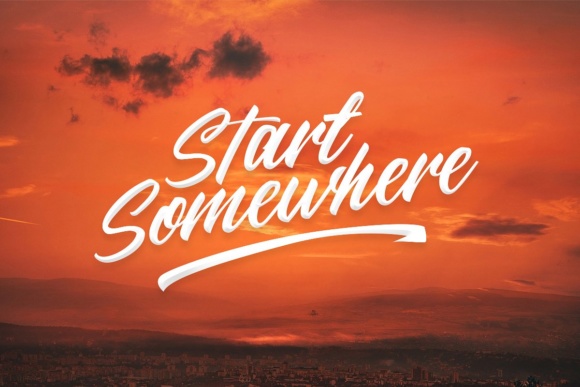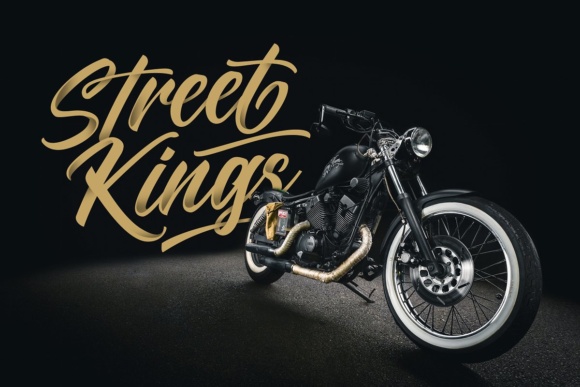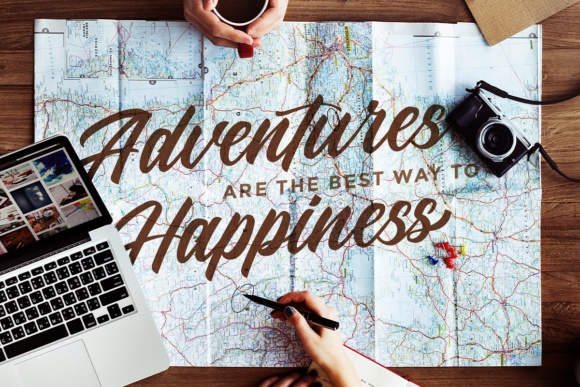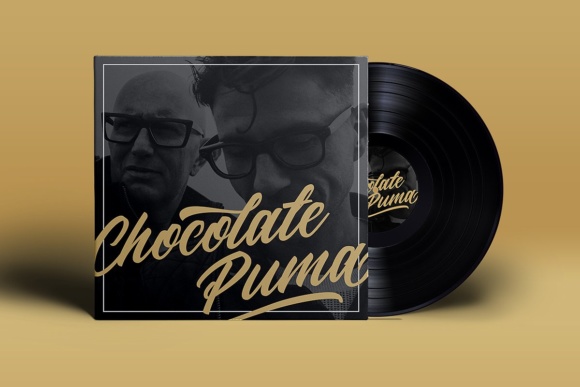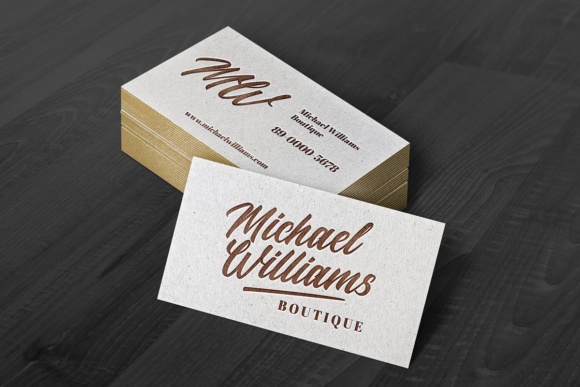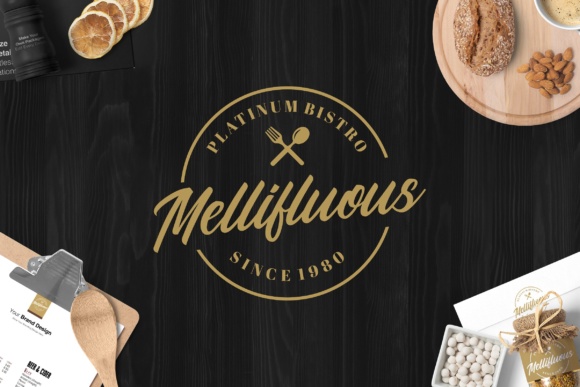
Introduction to Larizo Script Font
Larizo Script is a truly personalized handmade lettering that’s transformed into a font.
Larizo Script is a truly personalized handmade lettering that’s transformed into a font!
Key Features of Larizo Script Font
Why Choose Larizo Script Font?